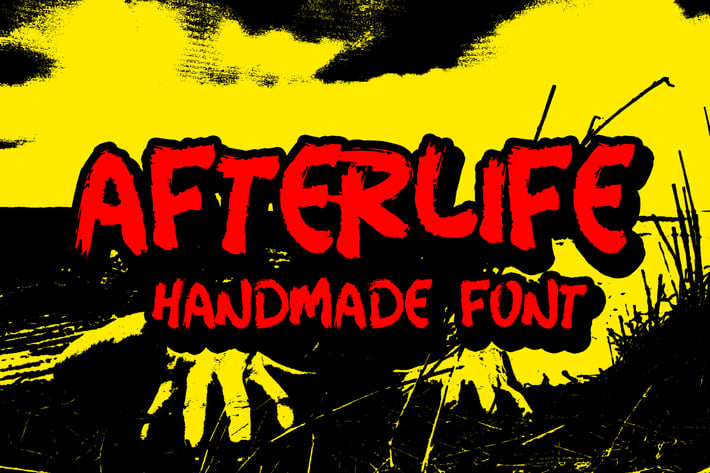
Afterlife Handmade Font
Afterlife font is a handmade font that suitable for food poster, for logo, music cover, clothing, and many many cool design projects.